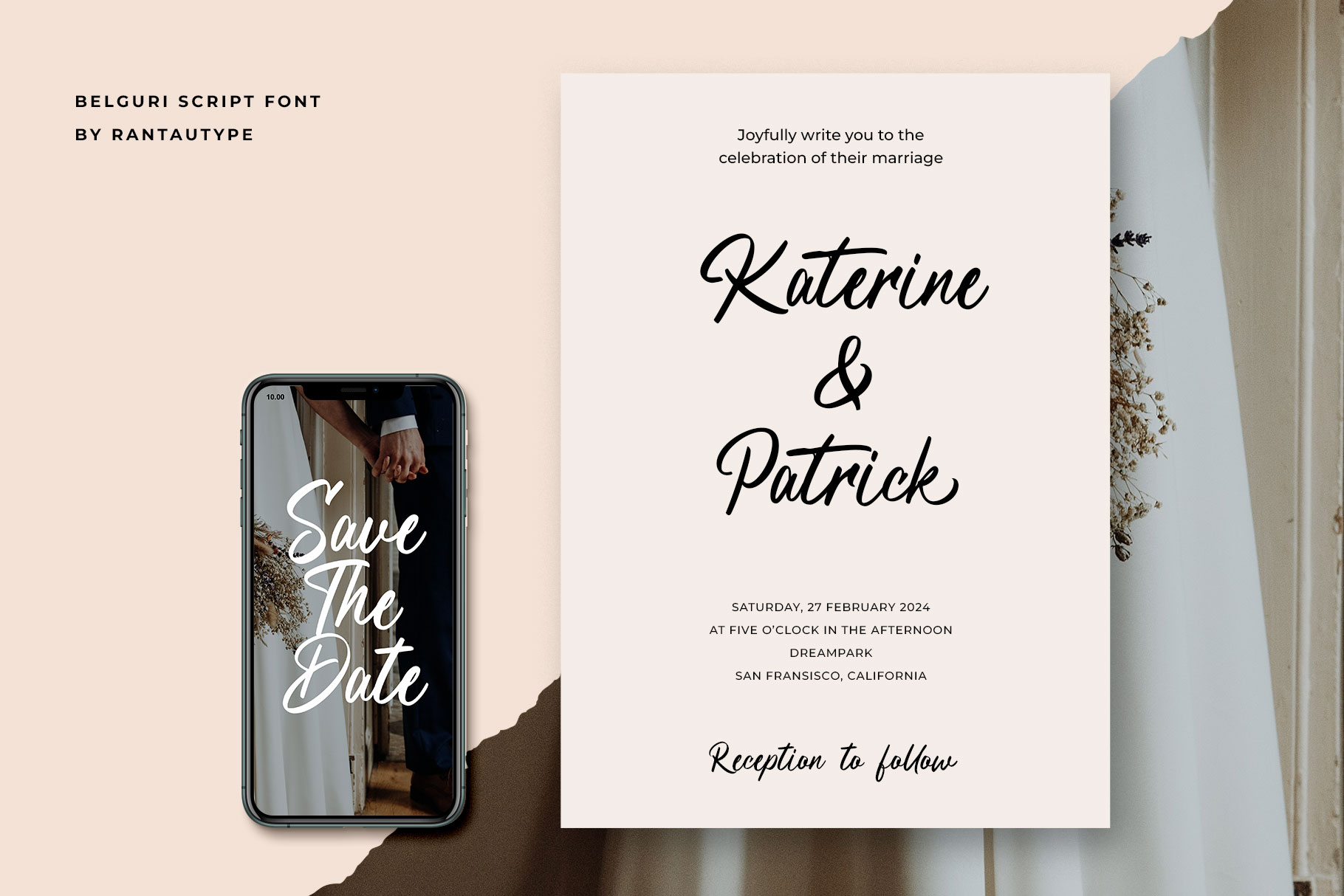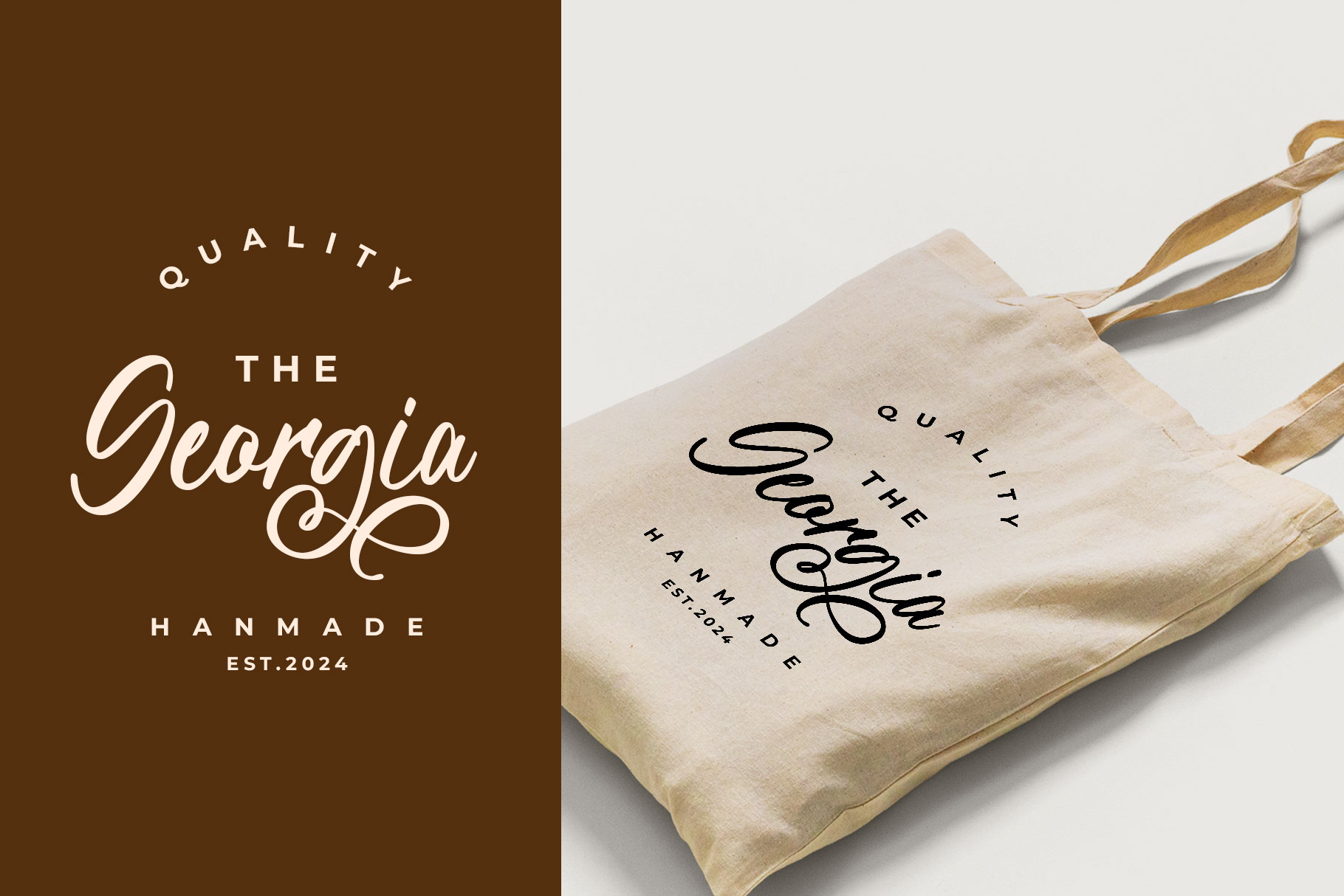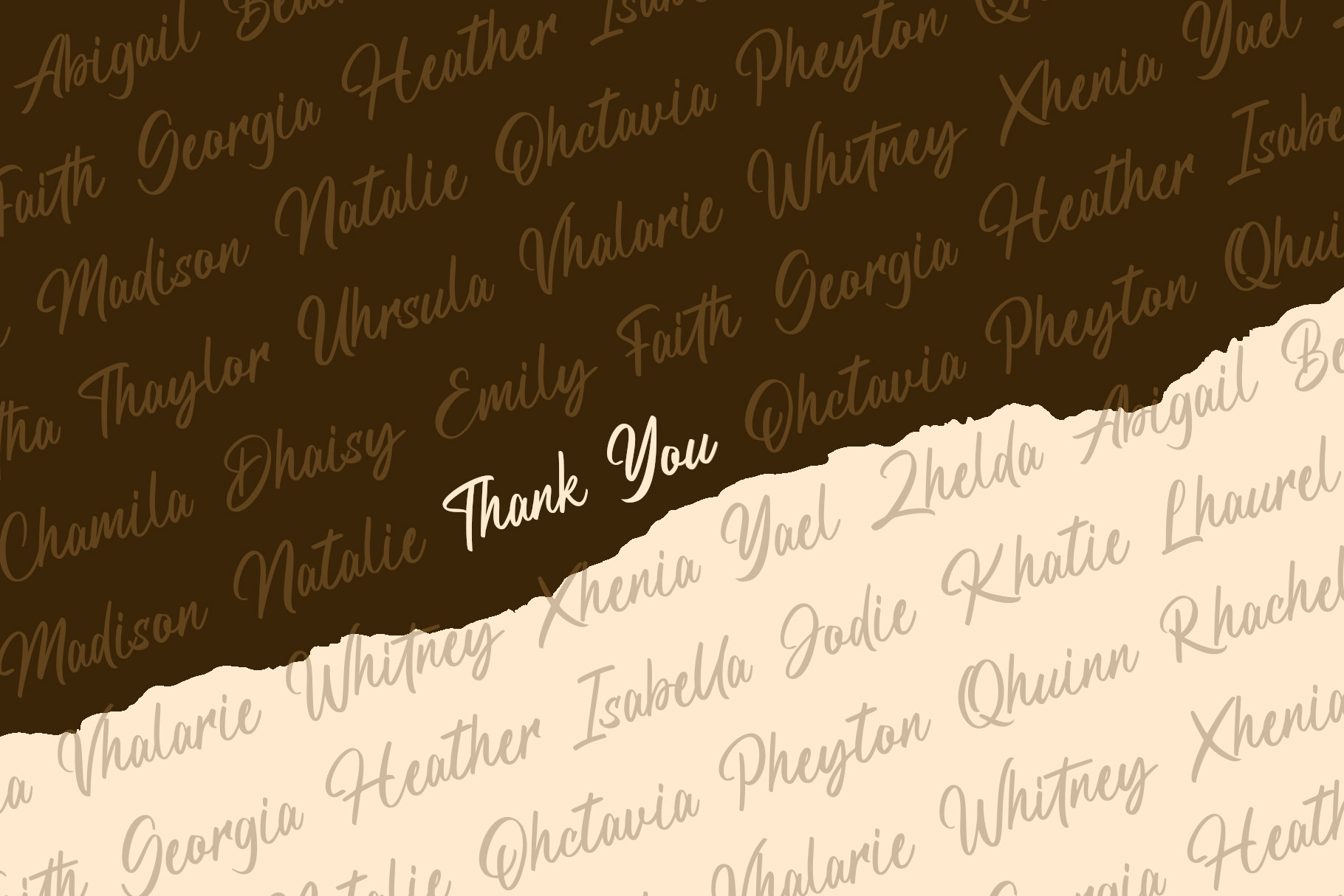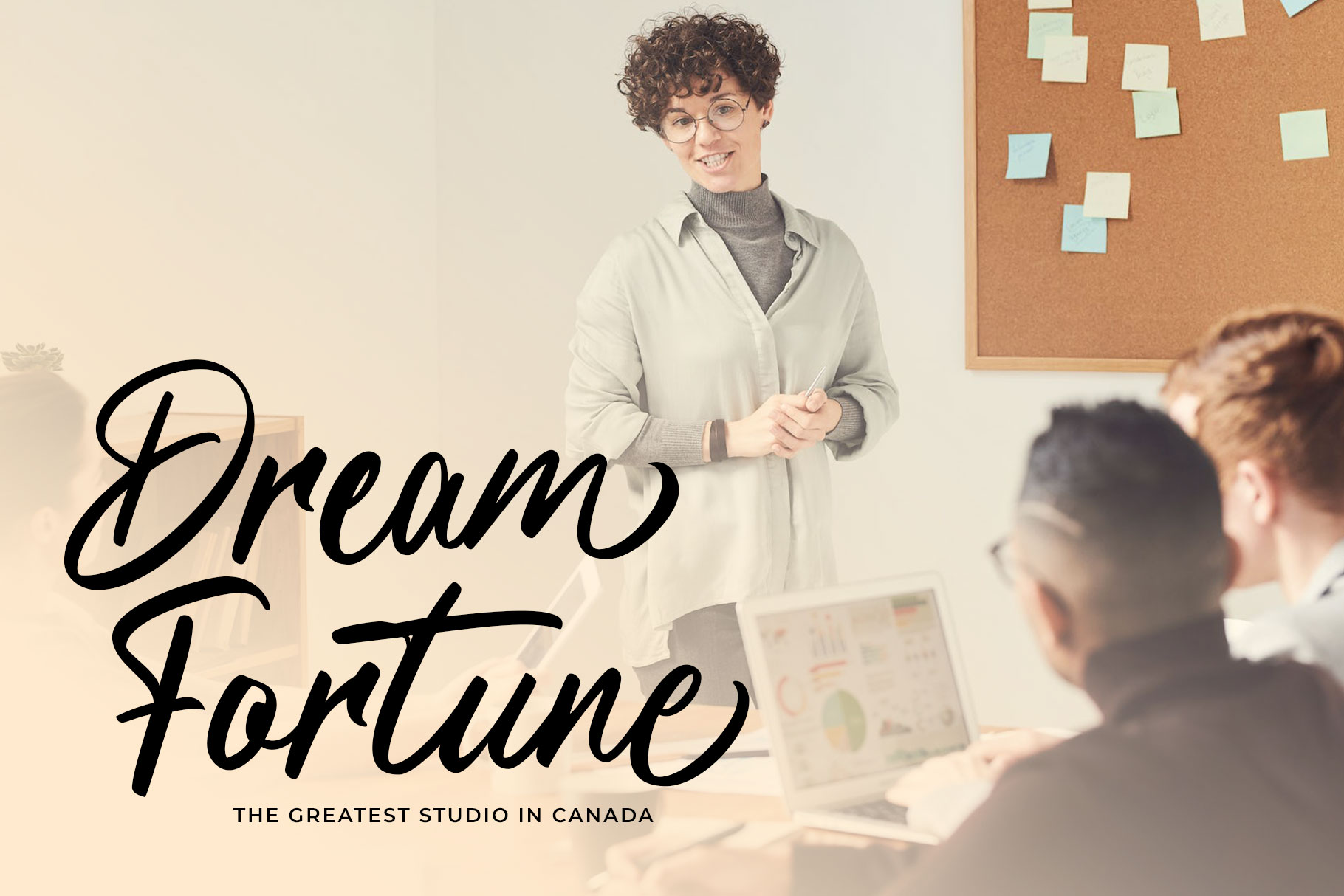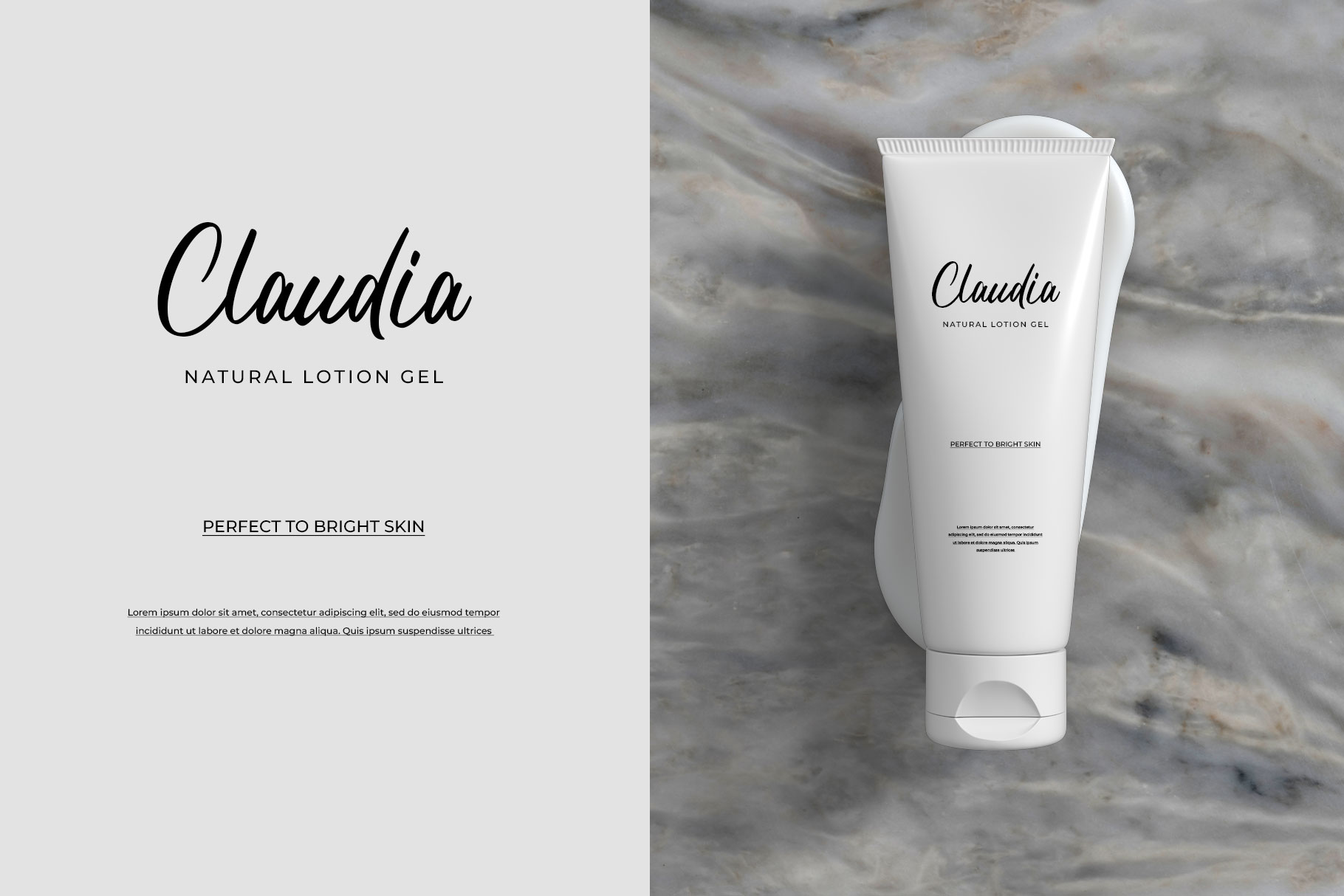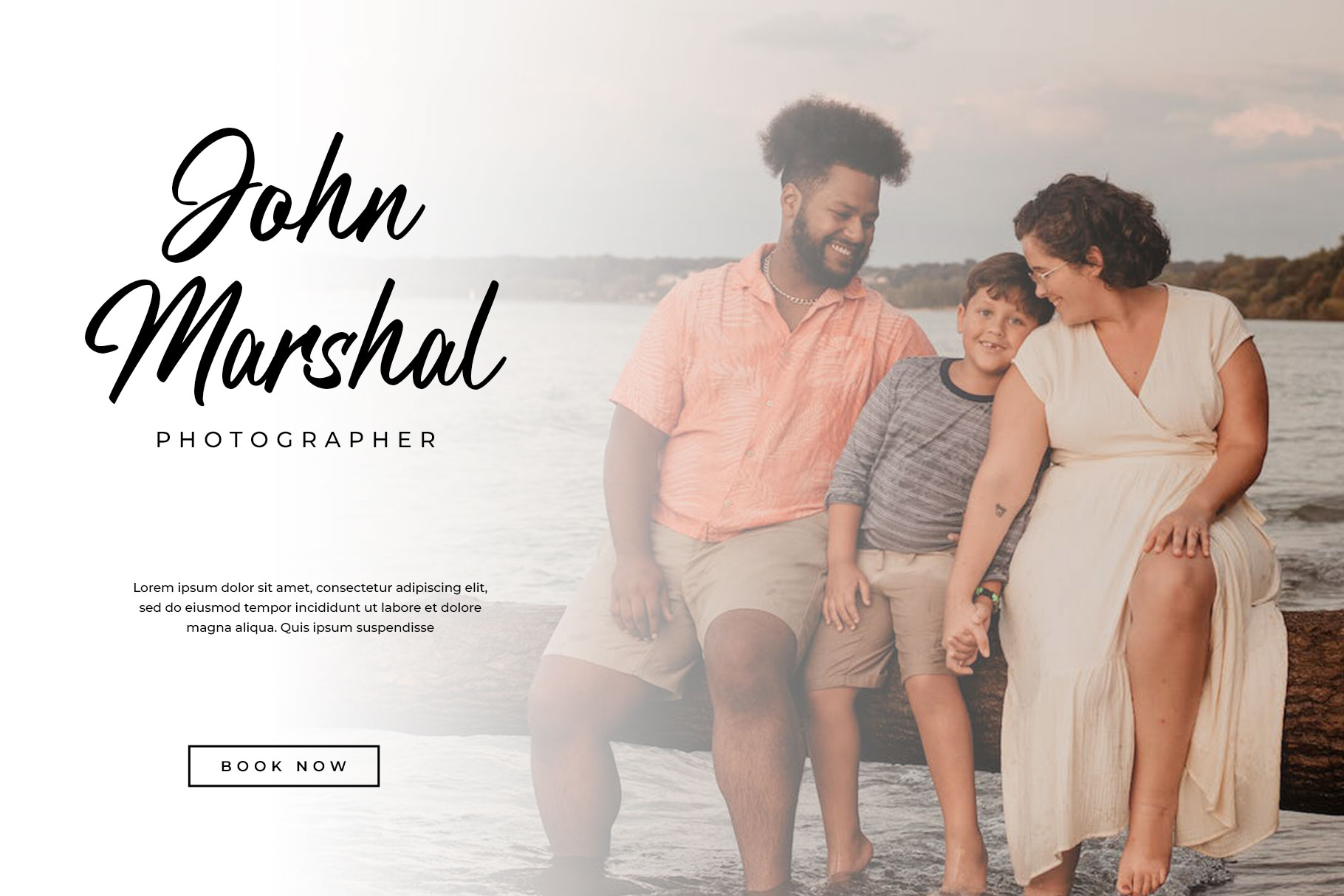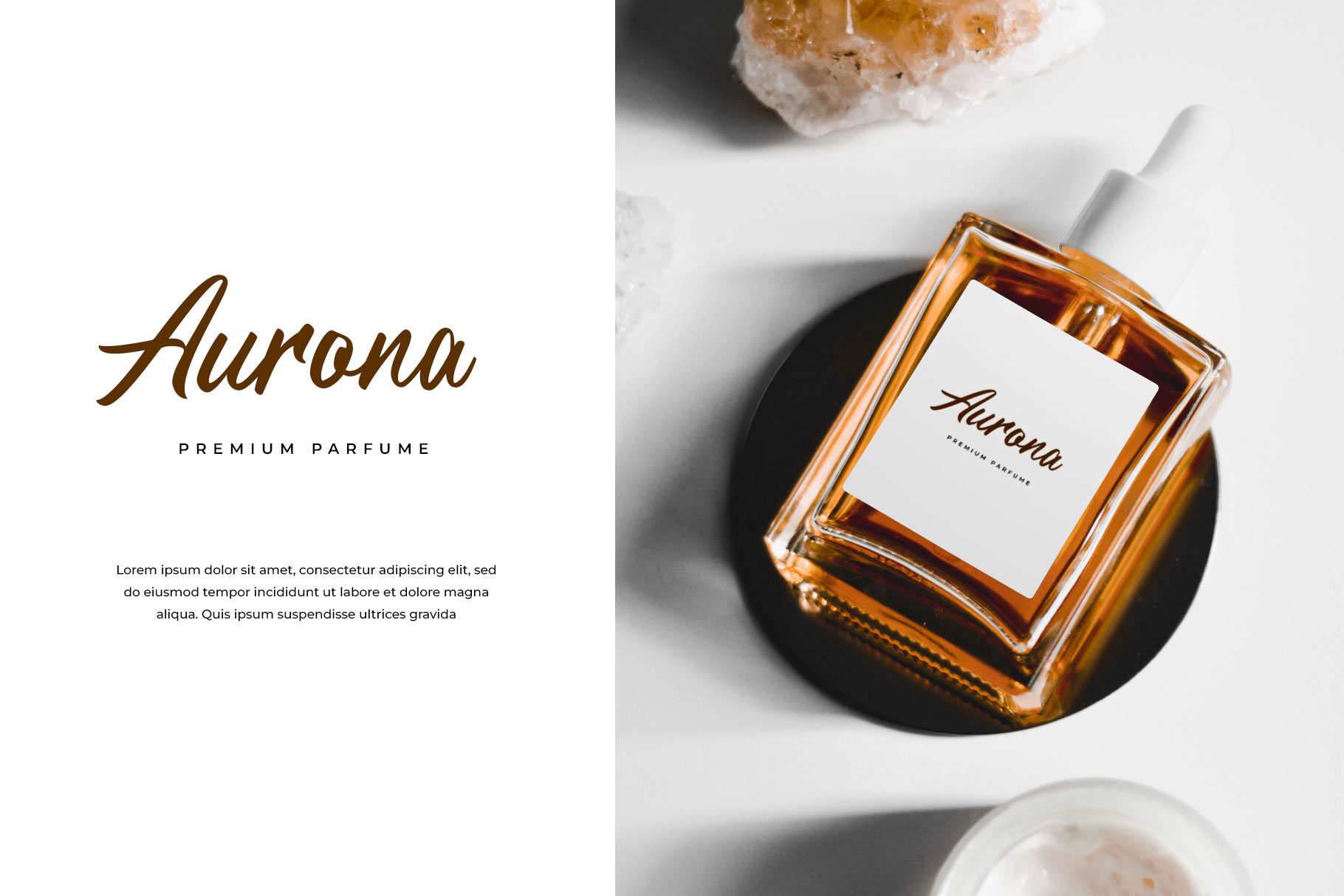
Belguri Script Font
Belguri is a modern script typeface that looks trendy with a natural and stylish shape. Experience perfect in a visual form for your project to stand out with belguri typeface, Belguri come with alternate, ligature and already support multilingual character.
Belguri is a perfect choice for any creative endeavor, chic, lifestyle design such as logos, advertisements, watermark on photography, stationery, branding project, display and magazine, invitation, corporate brand, product design, label, business project and many other project need handwriting taste.